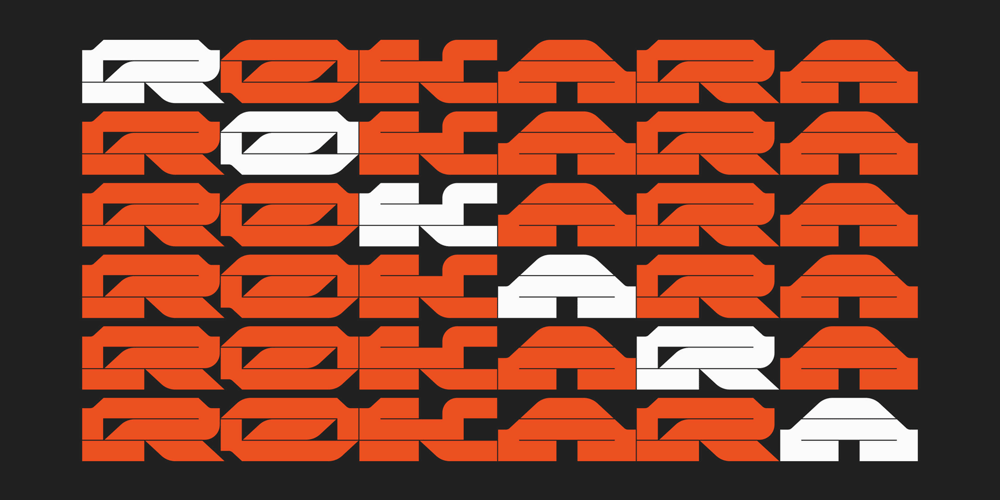
Rokara Font Family was designed by Jonathan Quainton and published by Sawdust. Rokara contains 2 styles and family package options. Rokara is a bold, edgy display typeface designed to make a powerful impact. Its extreme, monospaced structure is perfect for commanding attention in larger headlines. While the typeface’s modular design initially gives off a brutalist vibe, a closer look reveals subtle, elegant details in each glyph, ensuring both distinctiveness and readability.Rokara is available in two versatile weights: the original, perfect for making a striking impact, and a lighter version, thoughtfully crafted for smaller-scale applications.